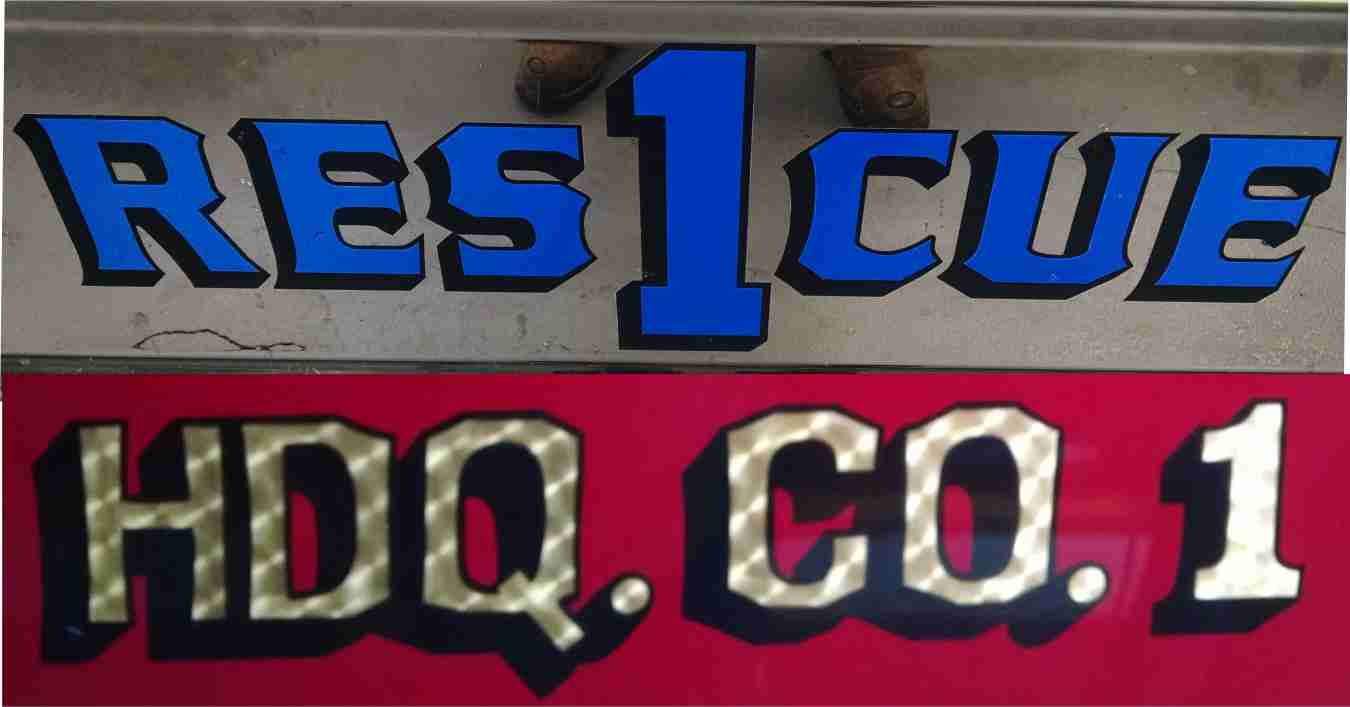
Fire Truck Fonts
Another one of those that looks like it's hand done, but it is in vinyl, so it's probably one of the fire truck manufacturers proprietary fonts....and they didn't even use the same one for both.... in any case can anyone get me close to either of these?
No suggestions? Oh well, looks like I will have to build it. I can't even do a trace since the text will be different